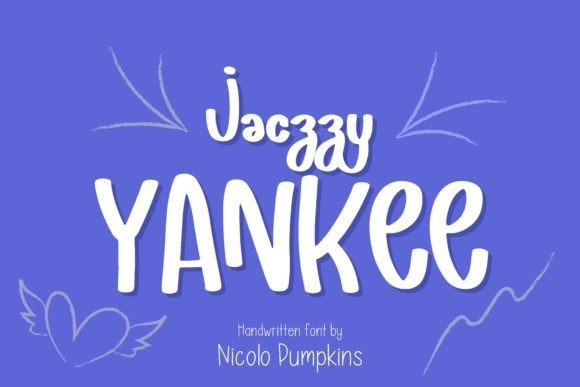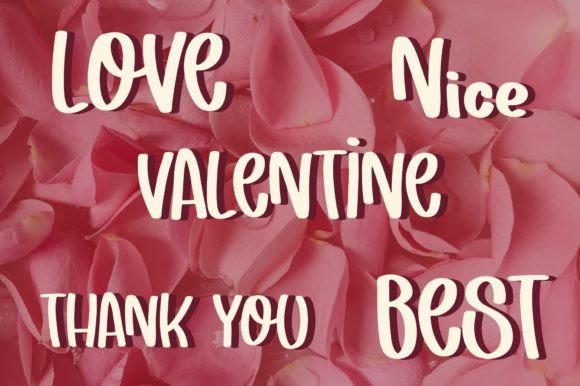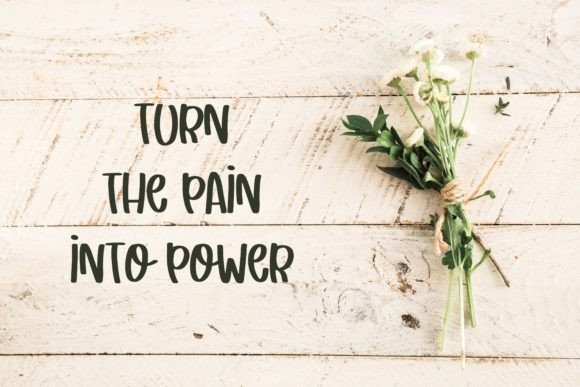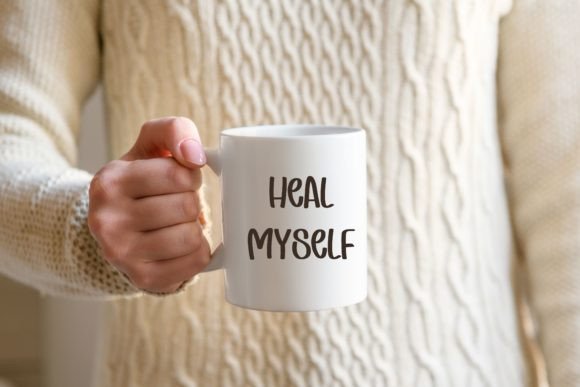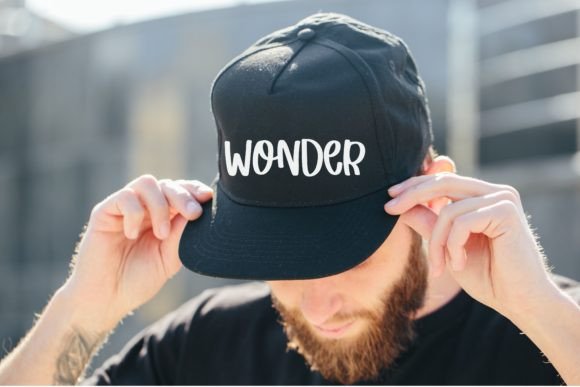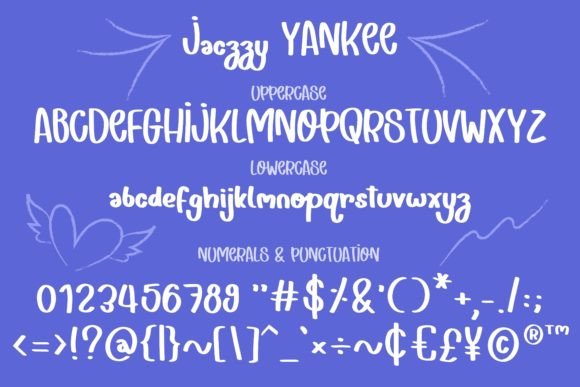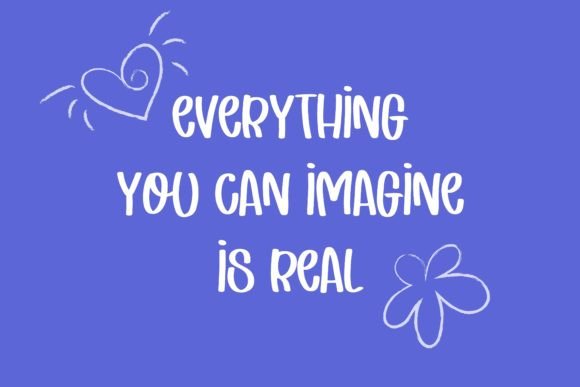
The Perfect Handwritten Touch
Have you ever stared at a blank canvas, trying to come up with the perfect quote or logo to capture a moment? We’ve all been there. Sometimes, all it takes is a spark of inspiration to bring our ideas to life. For designers and creatives, the right font can be just that spark.
Enter the Jaczzy Yankee Font, a charming and friendly handwritten font designed to add a personal touch to any project. Whether you’re creating quotes, logos, or any lettering product, this font is the perfect companion. Its PUA encoded feature makes it easy to access all of the glyphs and swashes, giving you endless possibilities for creative expression.
Jaczzy Yankee Font Key Features
- Font Family: Jaczzy Yankee is a unique, modern sans-serif font family.
- Unique Characteristics: Jaczzy Yankee features a distinctive, rounded sans-serif design with a friendly and approachable feel.
Jaczzy Yankee Font Review
As a designer, I recently had the chance to work with the Jaczzy Yankee Font. Here are my honest thoughts:
The Jaczzy Yankee Font has a unique and interesting aesthetic that can add a touch of personality to any design project. The font’s irregularities and imperfections give it a hand-drawn feel that can be quite charming.
- Uniquely styled characters
- Good for use in titles and headings
- Can be a great conversation starter
While the Jaczzy Yankee Font has its charm, it’s not without its limitations. The font’s irregularities can also make it difficult to read, especially at smaller font sizes. Additionally, the font’s unique style may not be suitable for all types of projects.
- Difficult to read at small font sizes
- Not suitable for large blocks of text
- May not be compatible with all devices or systems
The Jaczzy Yankee Font is a unique and interesting font that can be a great addition to certain design projects. While it has its limitations, it can be a great choice for titles, headings, and other design elements where a touch of personality is desired.
Getting the Most Out of Jaczzy Yankee Font
Here are some tips for getting the most out of Jaczzy Yankee Font:
– Use it sparingly to add a touch of uniqueness to your design.
– Pair it with other fonts to create a visually appealing combination.
– Experiment with different font sizes and styles to achieve the desired effect.
Jaczzy Yankee Font is commonly used for:
– Headlines and titles to add a touch of whimsy.
– Branding and logos to create a unique identity.
– Social media graphics to add visual interest.
Alternatives to Jaczzy Yankee Font
The Great Vibes Font is a modern, elegant script font designed to evoke a sense of playfulness and sophistication. It is ideal for use in branding, advertising, and packaging designs where a unique and eye-catching font is required. Compared to Jaczzy Yankee Font, Great Vibes Font is more refined and less distressed, making it a better choice for designs that require a clean and polished look.
The Alex Brush Font is a beautiful, handwritten script font that exudes a sense of elegance and sophistication. It is perfect for use in invitations, posters, and other designs where a personal and creative touch is needed. Unlike Jaczzy Yankee Font, Alex Brush Font is more formal and less casual, making it a better choice for designs that require a level of professionalism.